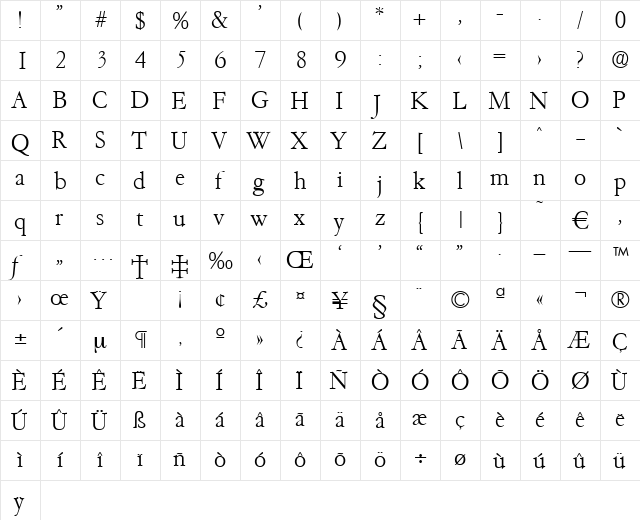
Garemond-Xlight Regular
Design Context for Garemond-Xlight Typeface
Garemond-Xlight is a composed and adaptable typeface that performs quietly and consistently across a wide range of design contexts. Its slender proportions lend an understated elegance to any composition.